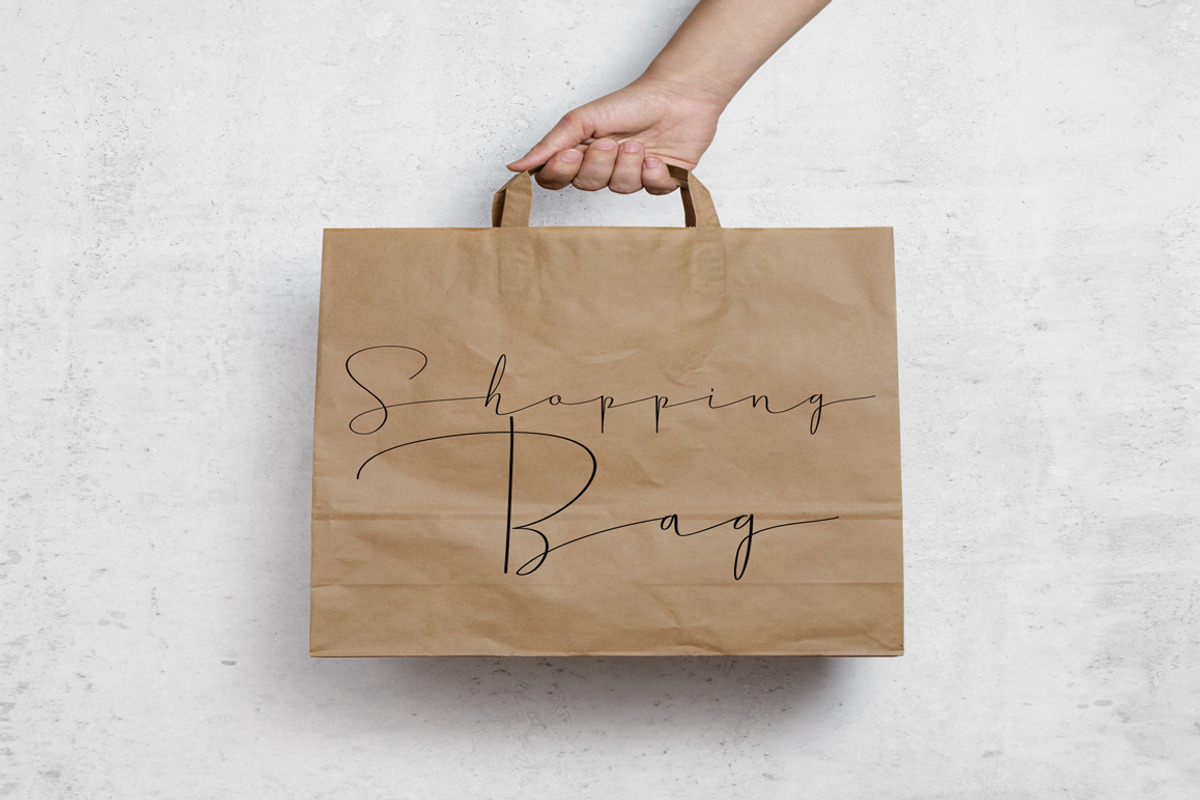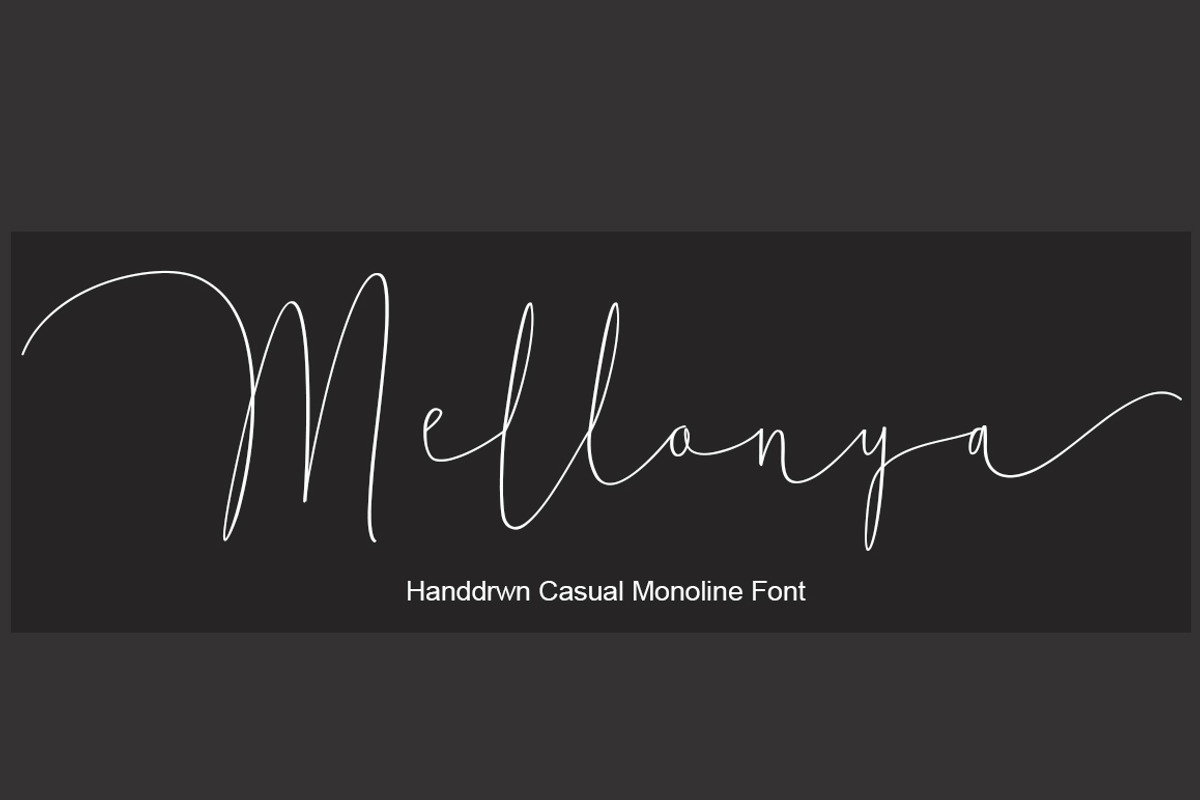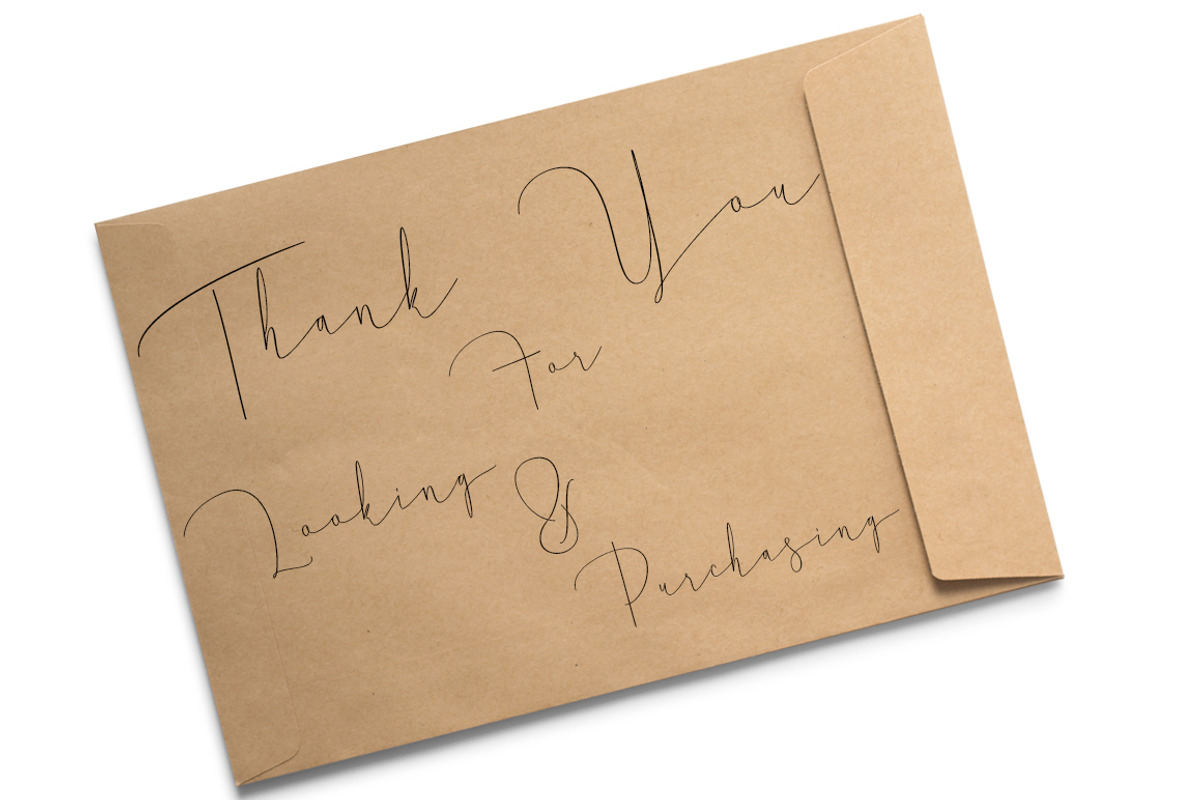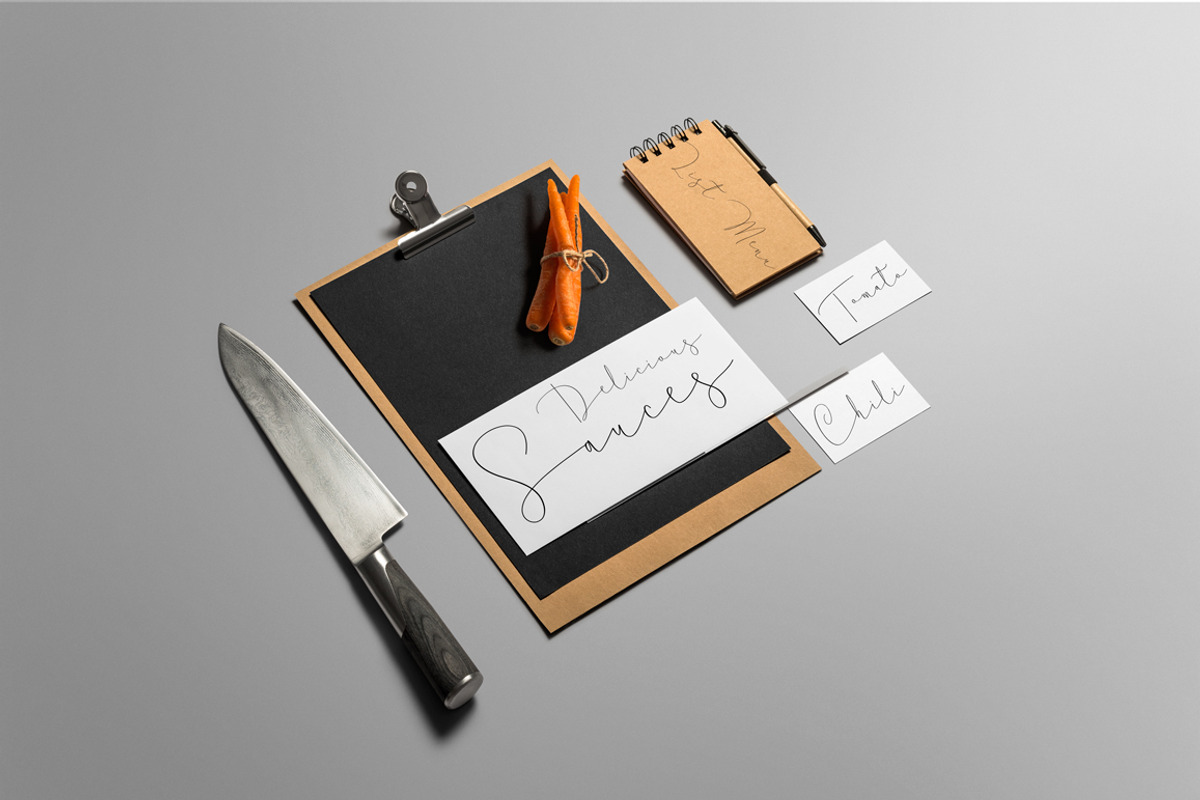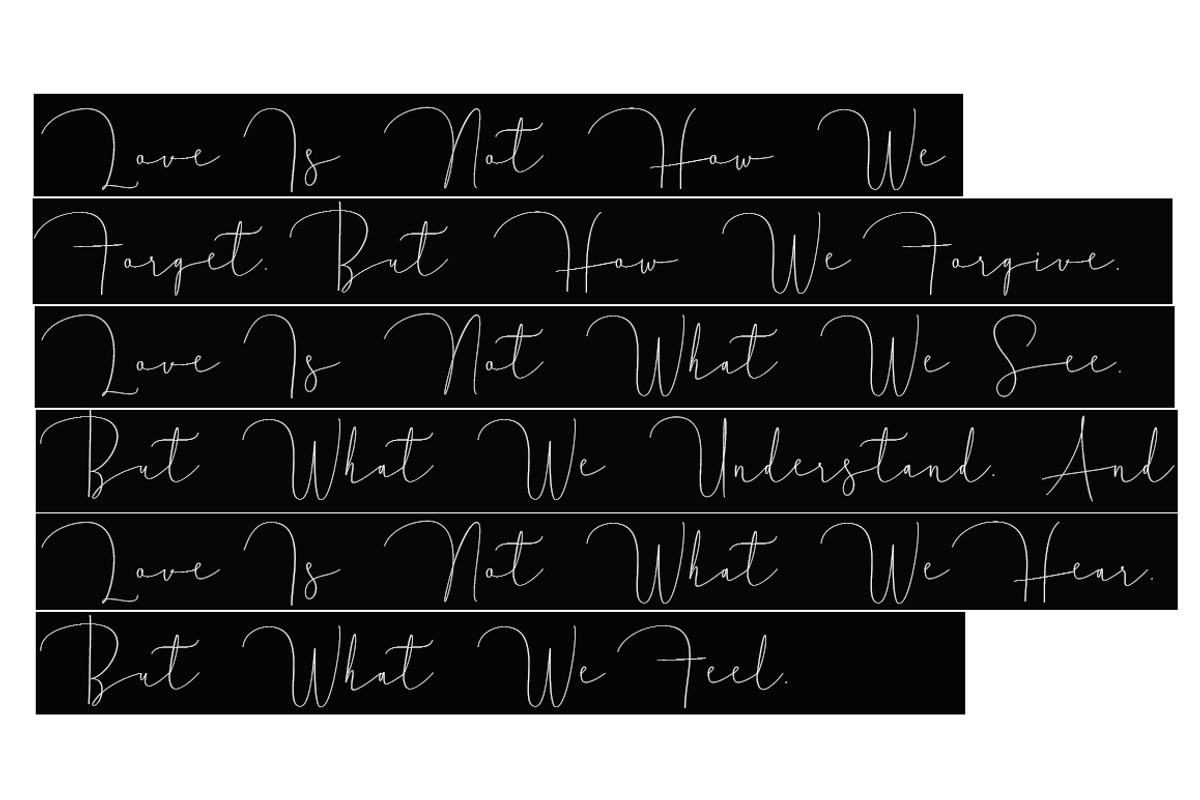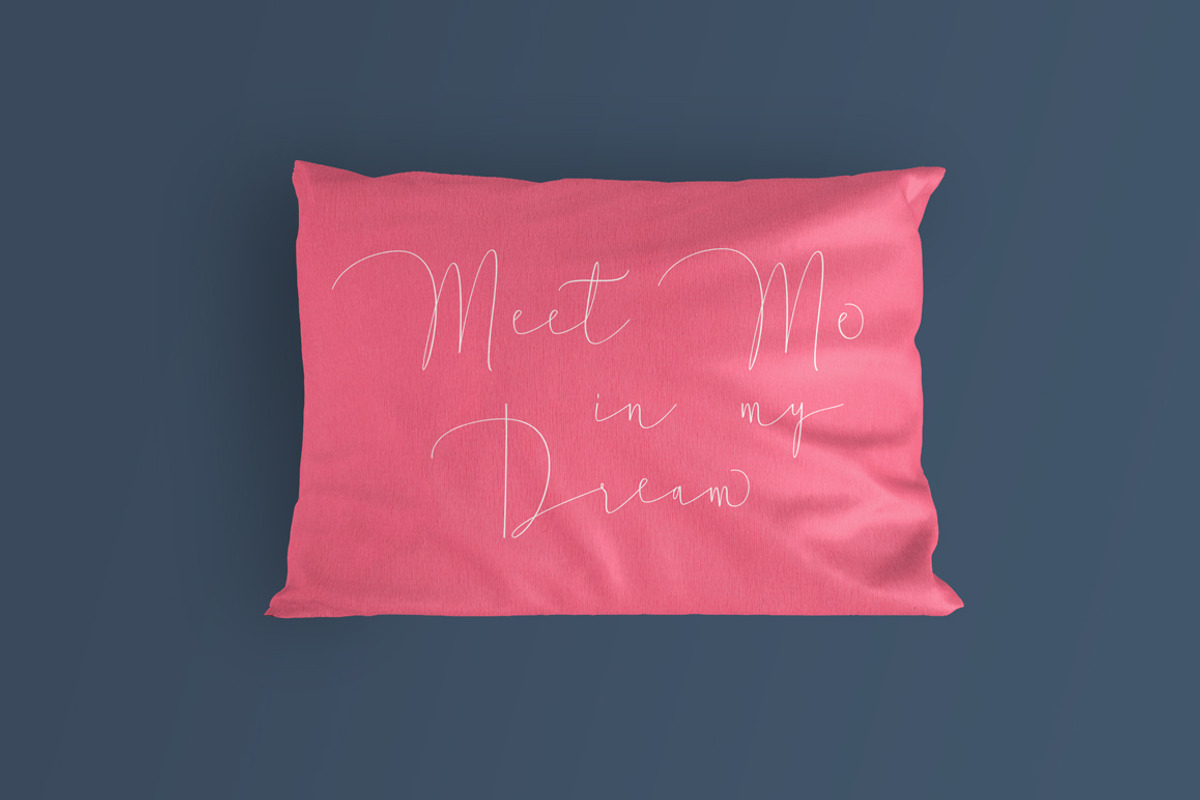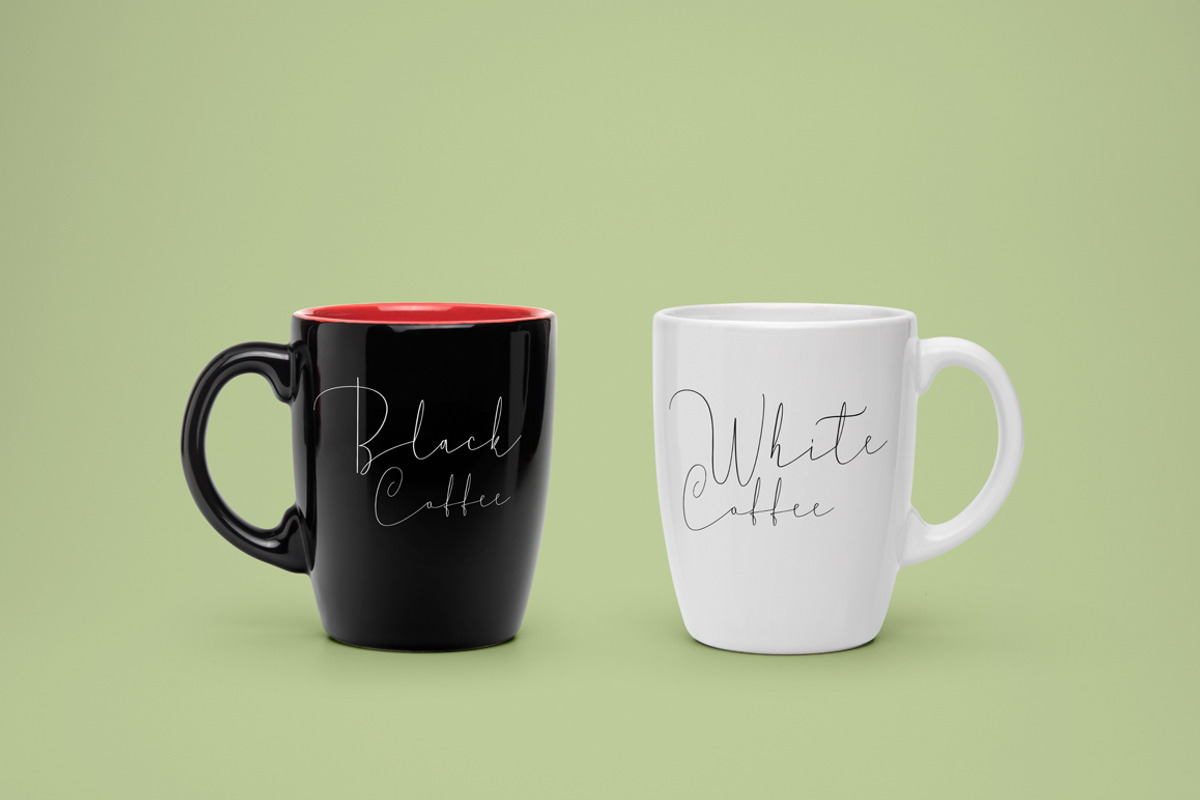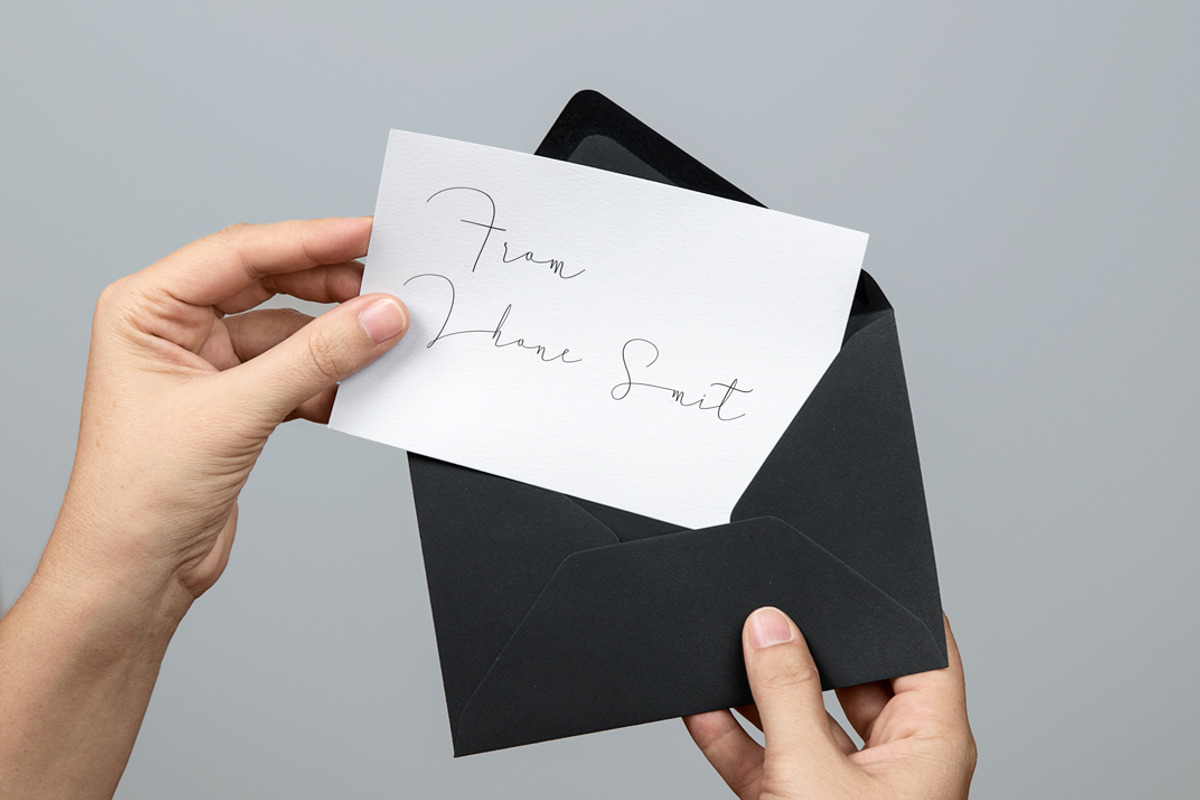
Mellonya
INTRODUCING
Mellonya Modern Calligraphy. This font was designed by handwriting, and it has a modern and unique forms of calligraphy, the writing style is very natural. Mellonya has a very unique style of calligraphy, it is very suitable for use in the work of modern design.
The Features of this fonts is:
- Standart ligatures
Can be used for various purposes.such as headings, logos, wedding invitation, t-shirt, letterhead, lable, news, posters, badges etc. To enable the OpenType Stylistic alternates, you need a program that supports OpenType features such as Adobe Illustrator CS, Adobe Indesign & CorelDraw X6-X7.a font that made the hand by having the character up and down like a dancer. Mellonya has a very unique style of calligraphy, it is very suitable for use in the work of modern design.